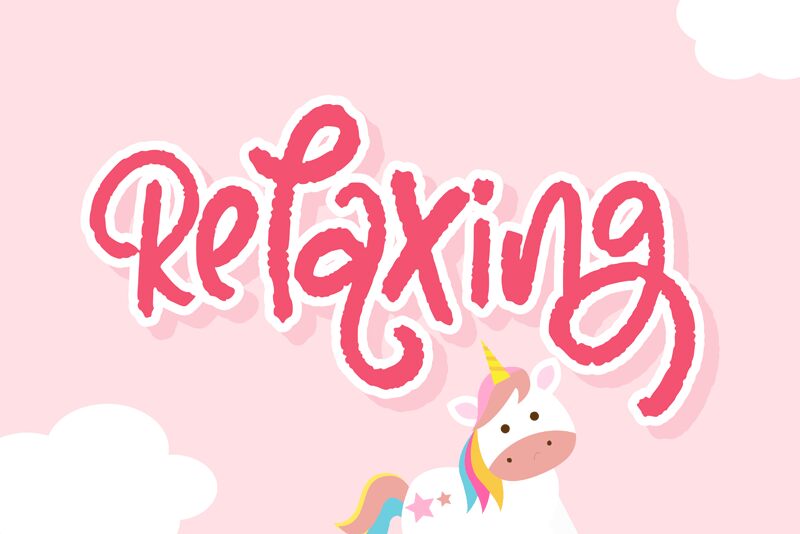
Unicorn Glowing
Unicorn Glowing font, crafted by DumadiStyle, captivates with its distinctive handwritten style and condensed design. This free font seamlessly blends whimsy with elegance, making it perfect for eye-catching projects. Its playful yet refined aesthetic is ideal for branding, invitations, and social media graphics.